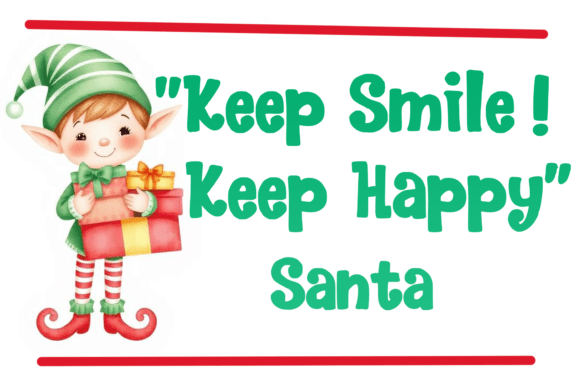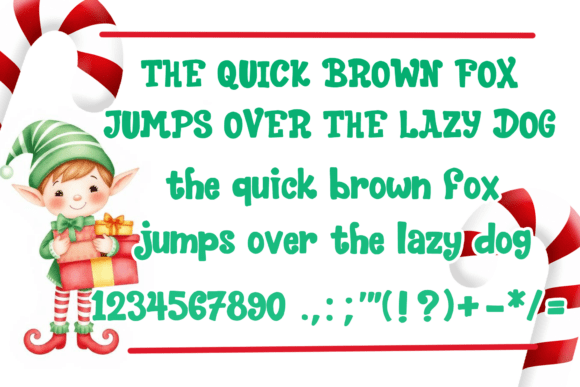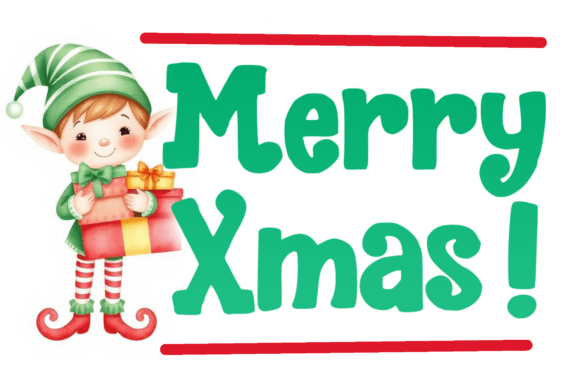
Introducing Elf Story Font: The Ultimate Christmas Companion for Designers and Crafters
Are you looking for a font that embodies the magic and whimsy of Christmas? Look no further than Elf Story Font, a charming and festive display font inspired by the delightful world of Christmas elves. This enchanting font is designed to bring a dash of merriment to your designs, making it the perfect choice for a wide range of creative projects.
A Font that Dances Across the Page
Elf Story Font is a versatile and lively font that is sure to capture the hearts of designers and crafters alike. Its playful and carefree nature makes it an ideal choice for children’s book illustrations, playful t-shirt designs, and a host of other creative projects. Whether you’re designing greeting cards, crafting vibrant stickers, or creating vivacious posters, Elf Story Font infuses everything with a sense of festive cheer.
Unleash Your Creativity with Elf Story Font
One of the standout features of Elf Story Font is its versatility. This font is adaptable to any design needing a casual and charming touch. Whether you’re creating digital content or working on a craft project, Elf Story Font is the perfect companion. Its unique and whimsical style adds a sprinkle of magic to any design, making it a must-have for designers and crafters looking to create something special.
So, what can you create with Elf Story Font? The possibilities are endless! Here are a few ideas to get you started:
- Children’s book illustrations: Bring your story to life with Elf Story Font’s playful and imaginative style.
- T-shirt designs: Add a dash of festive cheer to your apparel designs with this fun and lively font.
- Greeting cards: Create beautiful and unique greeting cards that are sure to delight friends and family.
- Stickers: Add a touch of whimsy to your stickers with Elf Story Font’s charming and playful style.
- Posters: Create eye-catching posters that are sure to grab attention with this festive and fun font.
Why Choose Elf Story Font?
So, why should you choose Elf Story Font for your next project? Here are just a few reasons:
- Unique and whimsical style: Elf Story Font adds a touch of magic to any design.
- Versatile: This font is adaptable to any design needing a casual and charming touch.
- Playful and fun: Elf Story Font is perfect for creating designs that are festive and fun.
Elf Story Font is a charming and festive display font that is sure to bring a dash of merriment to your designs. Its unique and whimsical style, versatility, and playful nature make it the perfect choice for a wide range of creative projects. Whether you’re a designer or crafter, Elf Story Font is a must-have for anyone looking to add a sprinkle of magic to their creations. So why wait? Fall under the spell of Elf Story Font and let it add a touch of festive cheer to your designs!